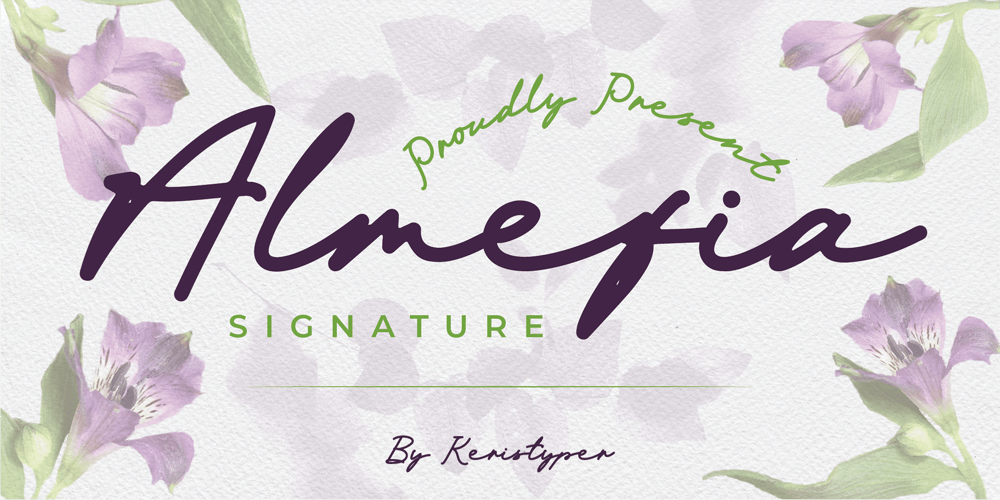
Almefia Font Family was designed by Tezar Tantular and published by Keristyper Studio. Almefia contains 1 styles and family package options. Proudly present Almefia Signature, a handwritten script font based on the expression of real handwriting. This font is good for logo design, Social media, Movie Titles, Books Titles, short text even long text letters, and good for your secondary text font with sans or serif.**Featured:*** Standard Uppercase & Lowercase* Numeral & Punctuation* Multilingual : ä ö ü Ä Ö Ü ß ¿ ¡* Alternate & Ligature* PUA encodedWe recommend programs that support the OpenType feature and the Glyphs panel such as Adobe applications or Corel Draw. so you can use all the variations of the glyphs.Hope you enjoy our fonts!